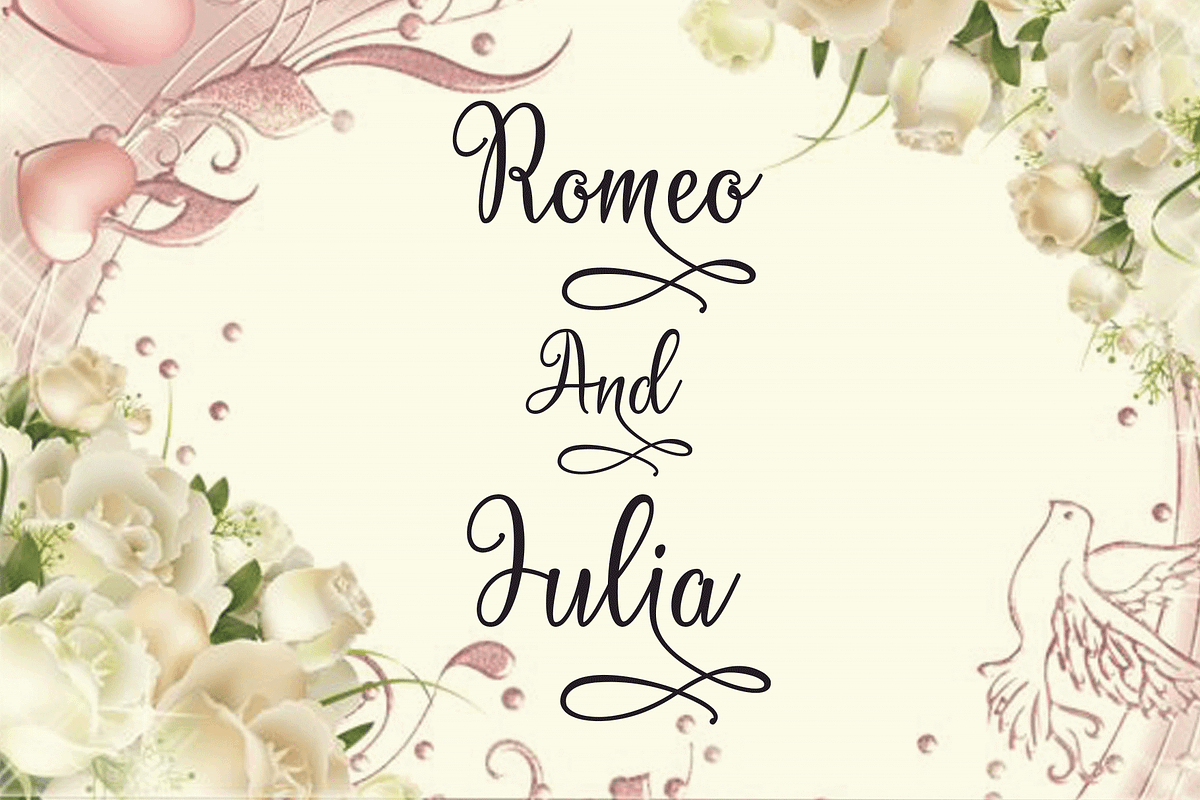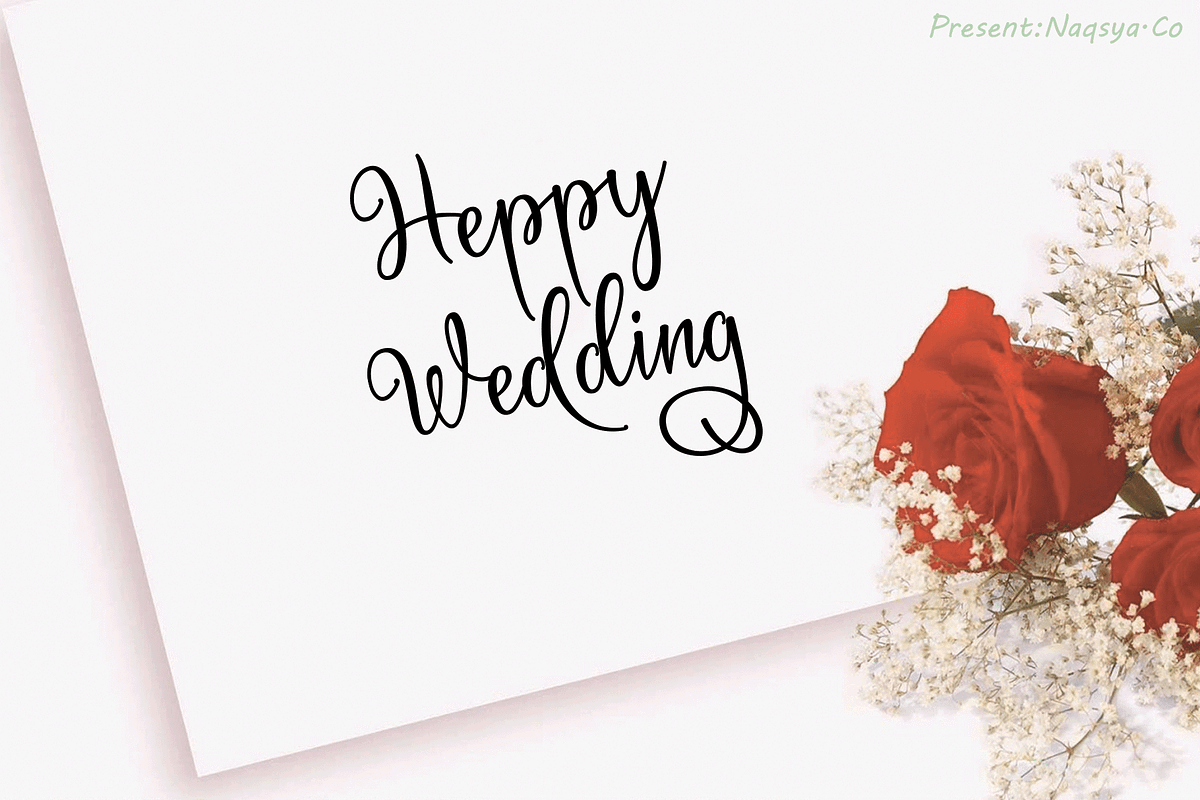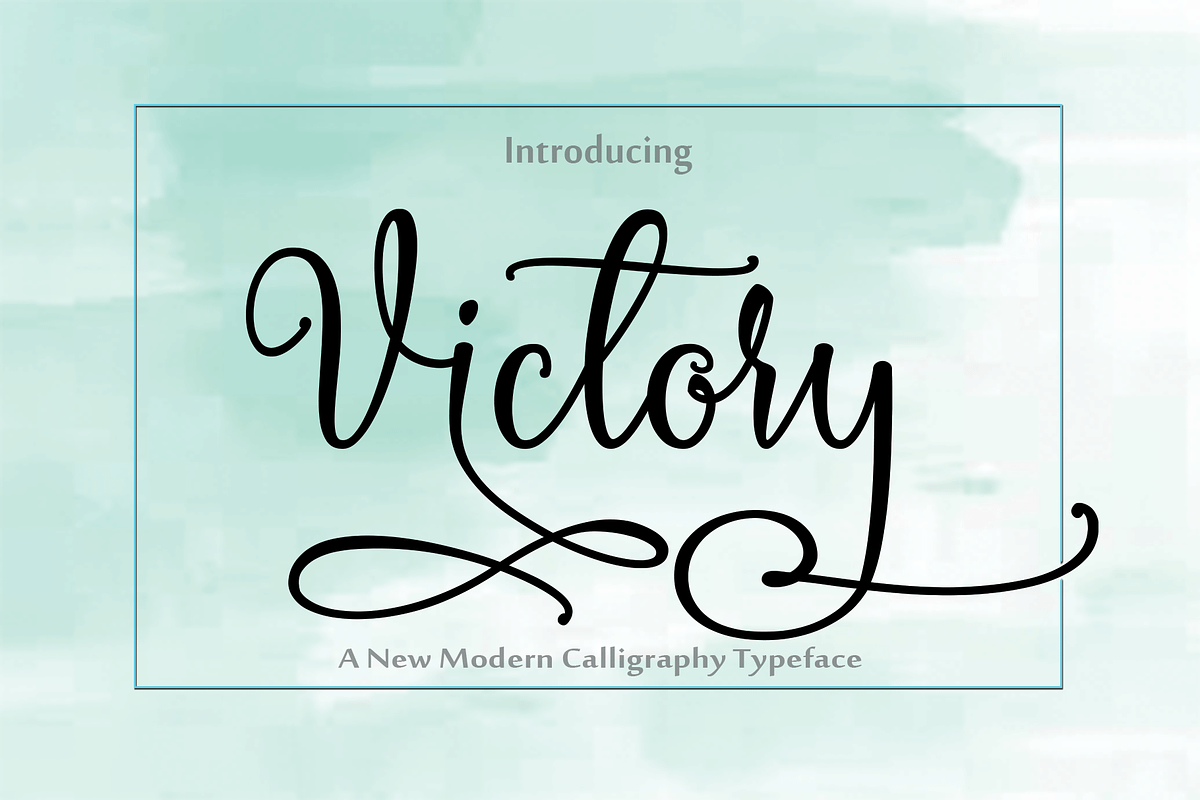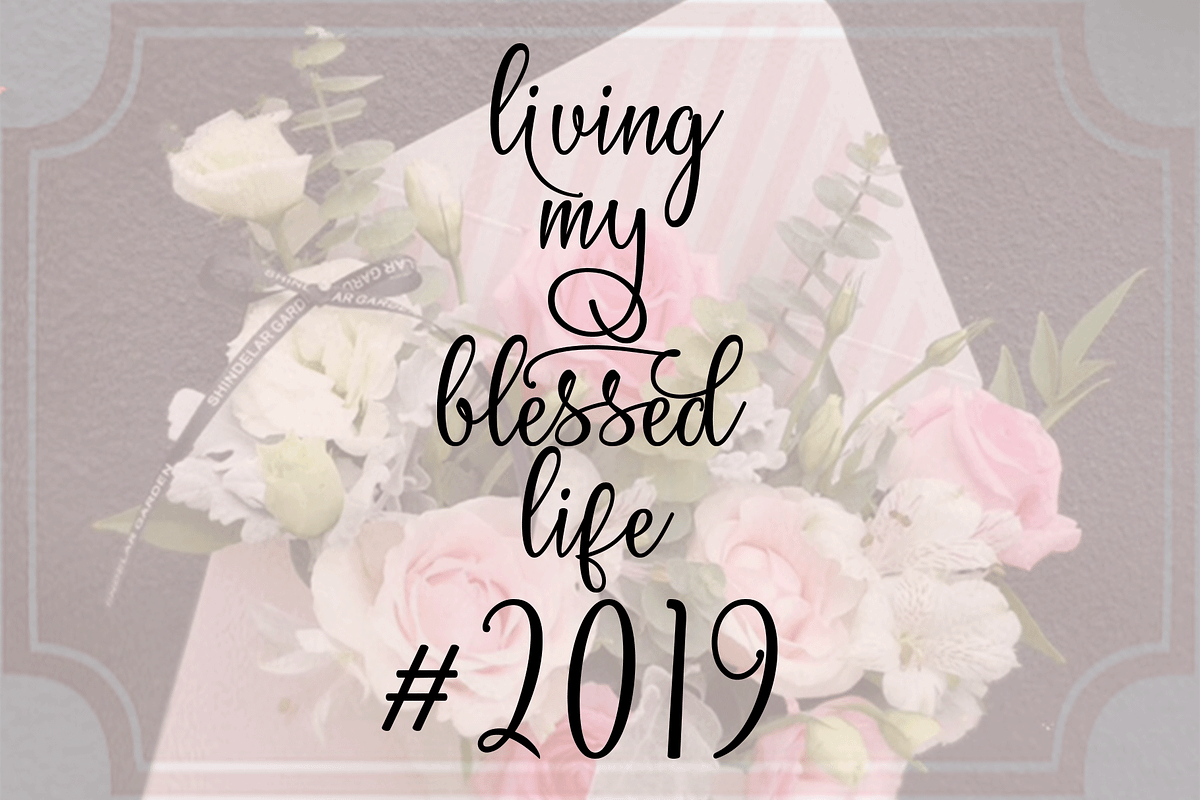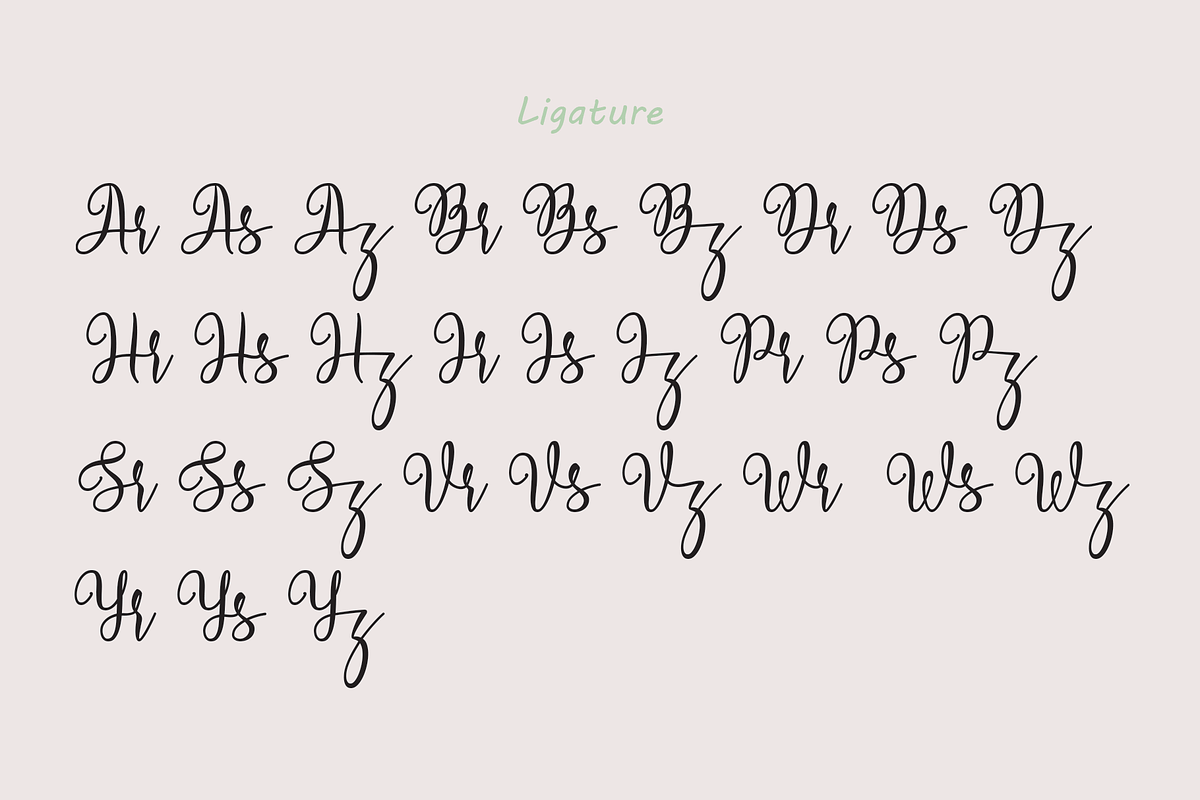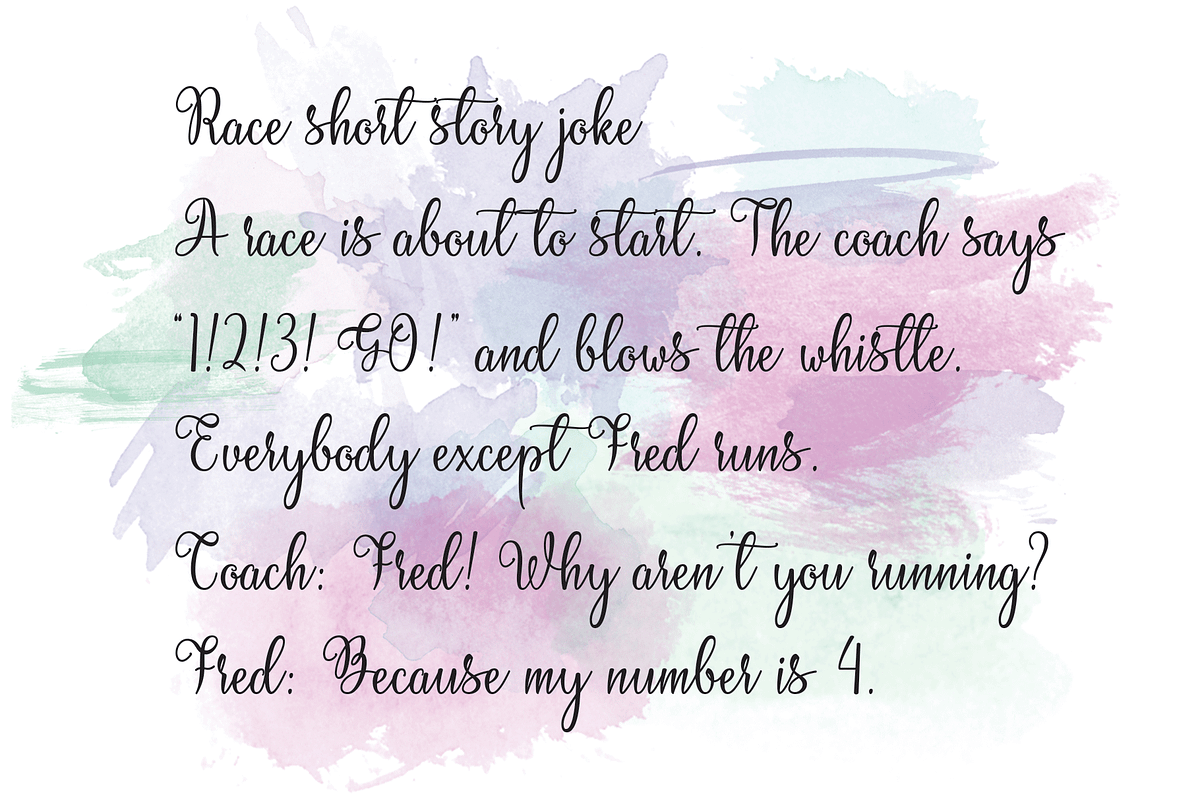
Victory Font
Victory a work that is purely a result of handwriting, has a natural characteristic. this is perfect for invitations, signatures, blogs, social media, business cards, product brands.Victory has Stylistic standard, Stylistic Alternate, Stylistic Sets and ligatures. and includes uppercase and lowercase letters, numbers and punctuation marks.The Features of this fonts is;
Standart ligatures Stylistic Alternates Contextual Alternates Stylistic sets
Why Victory Font is worth a look
Victory Font by Naqsya.Co fits naturally into Branding, posters, packaging, typography.